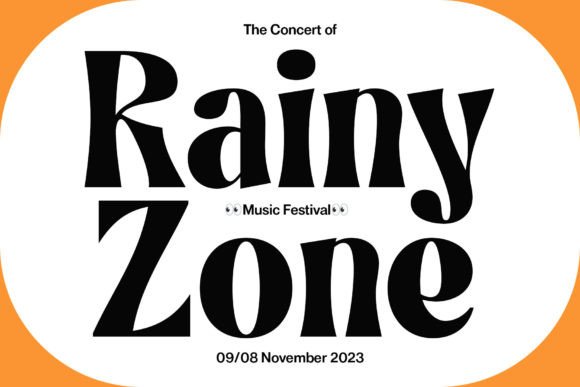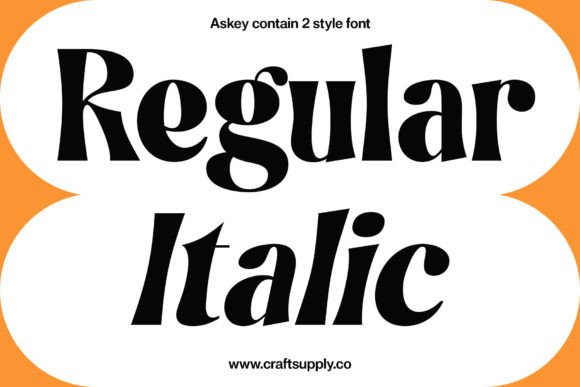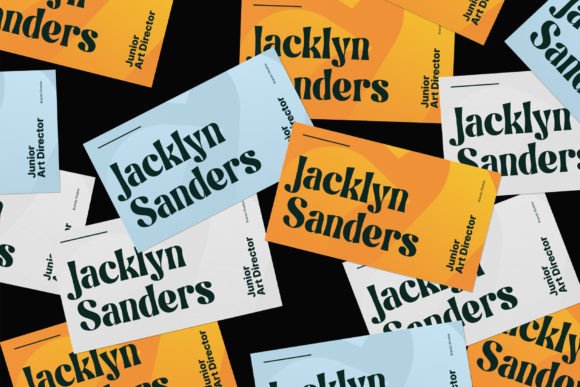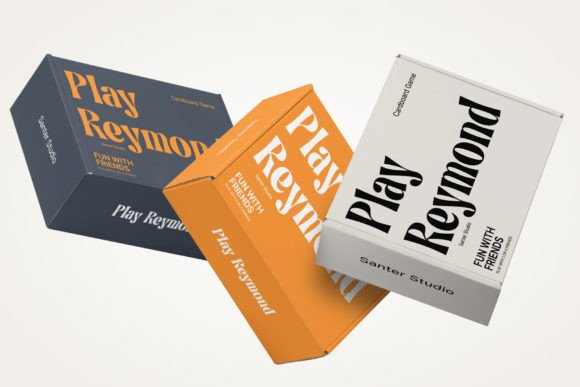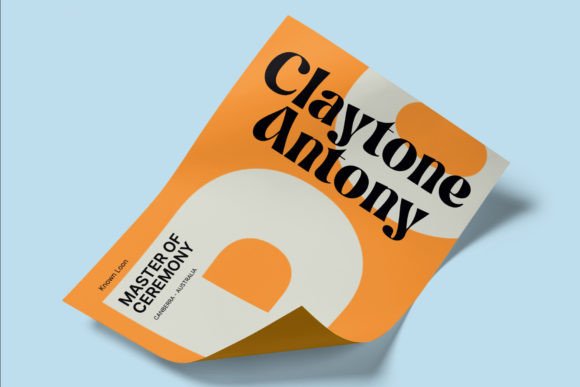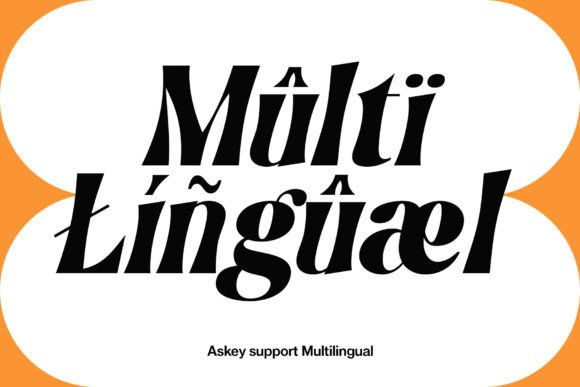
Askey Font: Unleash Your Creativity with this Funky Serif Typeface
In the world of typography, fonts play a crucial role in conveying the tone and personality of a design. For designers and crafters looking to add a touch of funk and creativity to their projects, the Askey font is an excellent choice. This bold and expressive typeface is designed to make a statement, exuding confidence and originality. In this article, we’ll dive into the world of Askey font, exploring its unique features, and what makes it perfect for projects that demand a touch of funkiness.
The Birth of Askey Font
The Askey font is a relatively new addition to the world of typography, but its impact is already being felt. Designed with the goal of creating a bold and unconventional typeface, Askey is the brainchild of a team of designers who sought to push the boundaries of traditional serif fonts. The result is a font that is both unique and eye-catching, perfect for designers looking to add a touch of personality to their work.
What Makes Askey Font So Special?
So, what sets Askey font apart from other serif fonts? The answer lies in its unique and unconventional serifs. Unlike traditional serif fonts, which feature simple and elegant serifs, Askey’s serifs are bold and expressive, adding a touch of funk and creativity to any design. This distinctive feature makes Askey perfect for projects that demand a bold and eye-catching typeface.
Key Features of Askey Font
Here are some of the key features that make Askey font an excellent choice for designers and crafters:
- Bold and Expressive: Askey font is designed to make a statement, with bold and expressive letterforms that exude confidence and originality.
- Unique Serifs: The font’s unconventional serifs add a touch of funk and creativity to any design, making it perfect for projects that demand a bold and eye-catching typeface.
- Perfect for Display Text: Askey font is ideal for display text, such as posters, album covers, and any design that demands a touch of funkiness.
- Highly Versatile: Despite its bold and expressive nature, Askey font is highly versatile, and can be used in a variety of design contexts.
Use Cases for Askey Font
So, what are some use cases for Askey font? Here are a few ideas to get you started:
- Posters and Flyers: Askey font is perfect for creating eye-catching posters and flyers that demand attention.
- Album Covers: The font’s bold and expressive nature makes it ideal for album covers, adding a touch of funk and creativity to any music design project.
- Logos and Branding: Askey font can be used to create bold and eye-catching logos and branding materials that exude confidence and originality.
- Social Media Graphics: The font’s versatility makes it perfect for social media graphics, such as Facebook and Instagram posts.
Tips for Using Askey Font
Here are a few tips for using Askey font in your design projects:
- Experiment with Different Sizes: Askey font looks great in a variety of sizes, so don’t be afraid to experiment and find the perfect size for your design.
- Pair with Other Fonts: The font’s bold and expressive nature makes it perfect for pairing with other fonts, adding contrast and visual interest to your design.
- Use in Moderation: While Askey font is bold and eye-catching, it’s best used in moderation. Use it sparingly to add emphasis and create visual interest.
In conclusion, Askey font is a bold and expressive typeface that channels the spirit of funk and creativity. With its unique and unconventional serifs, Askey exudes a sense of artistic flair and individuality, making it perfect for projects that seek to make a statement and stand out from the crowd. Whether you’re working on posters, album covers, or any design that demands a touch of funkiness, Askey adds a distinctive and charismatic charm. So, why not give Askey font a try and unleash your creativity?